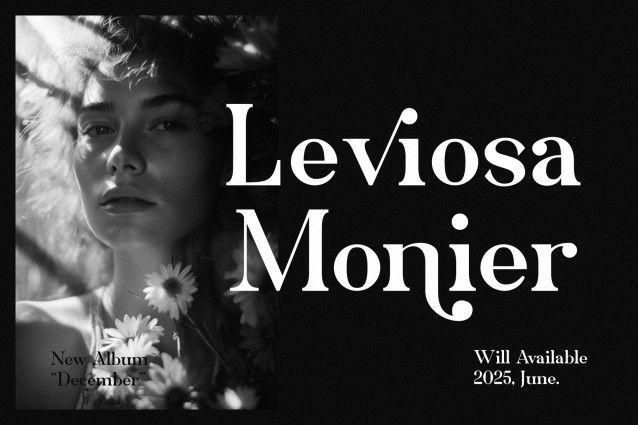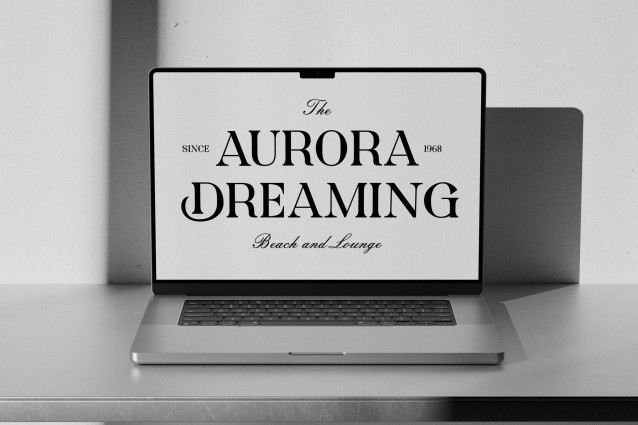
Briliance Gelanio Font
Briliance Gelanio Font – an elegant serif font By Luminatype Studio that beautifully unites fashion with function. With its alternative glyphs, this font lends itself perfectly to the realms of high-impact display use. Whether you’re crafting editorial content, honing a logo design, or enhancing a musical album’s aesthetic, the Briliance Gelanio stands out in all its glory. It’s an ideal choice for apparel branding or adding that sophisticated touch to product packaging. It can command attention on magazine headlines or subtly elevate your text overlay on any backdrop. Experience the stylish versatility of the Briliance Gelanio serif font.